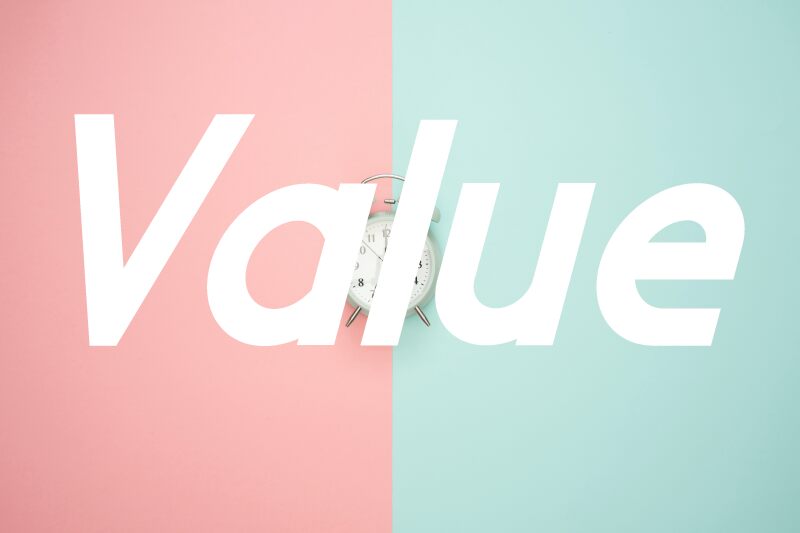
VALUE Bold Italic, a striking sans serif font designed by Design Vector10, combines boldness with elegance.
Its semi-condensed width makes it versatile for various creative projects, such as modern websites and sleek branding materials. The clean lines and distinct letterforms of this typeface lend themselves perfectly to impactful headlines or attention-grabbing logos. Whether you're designing a cutting-edge technology blog or an upscale fashion magazine, VALUE Bold Italic will add a touch of sophistication and professionalism to your work.